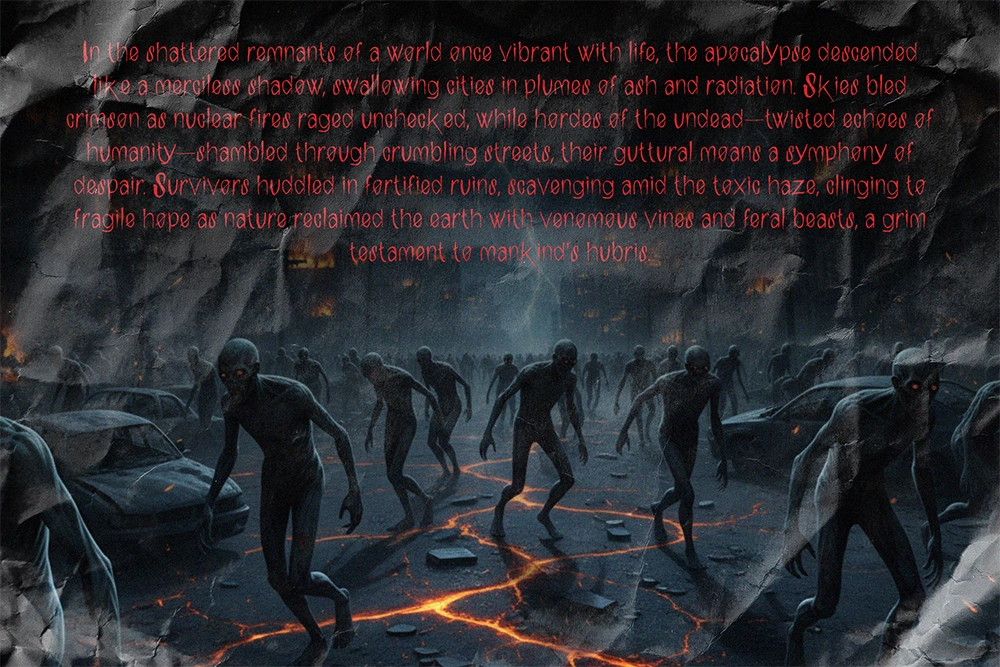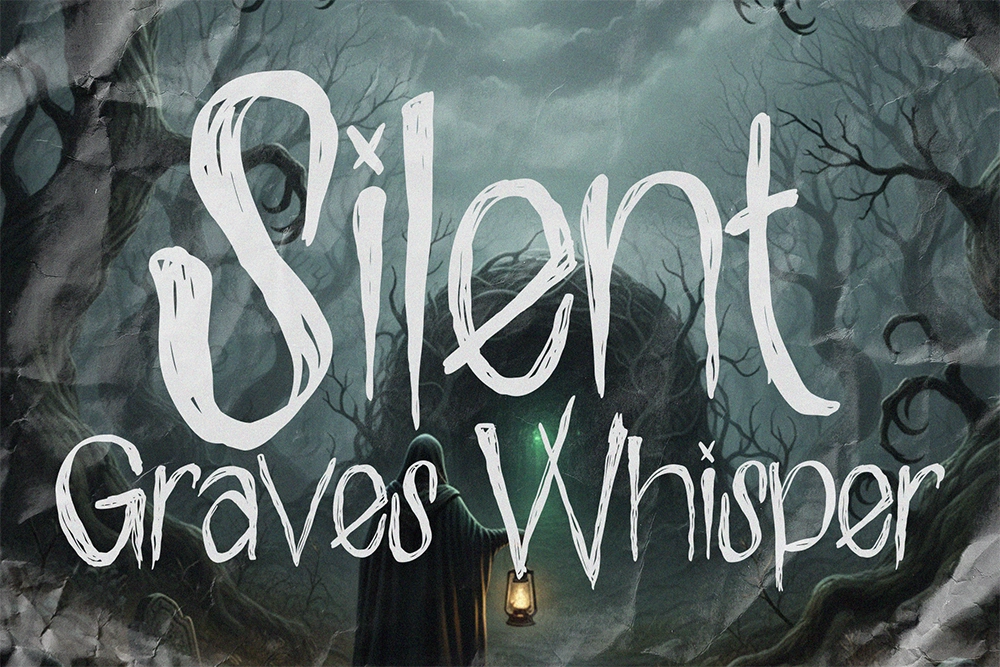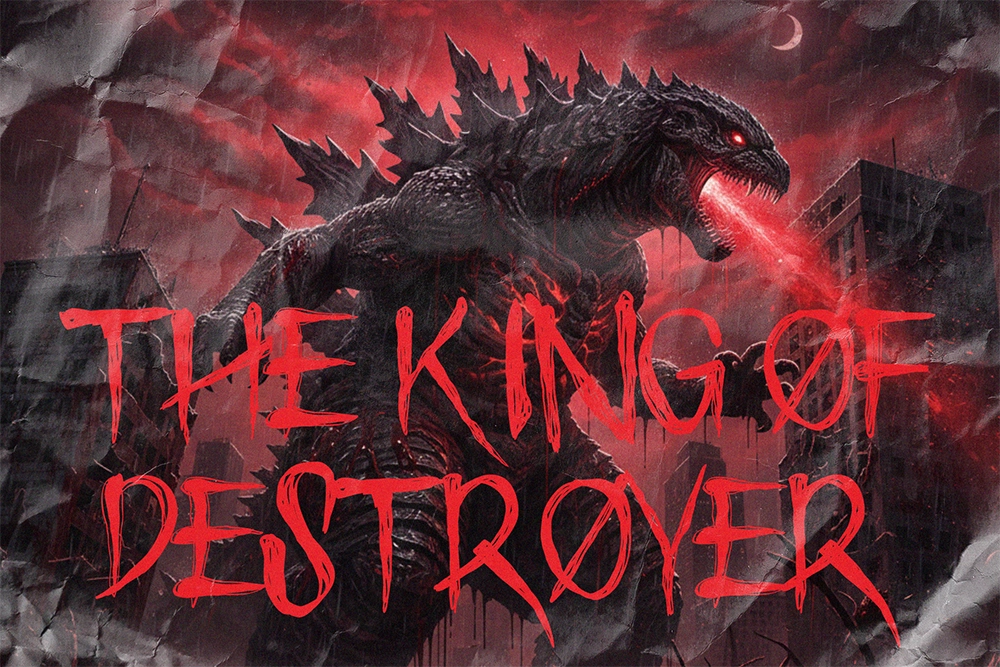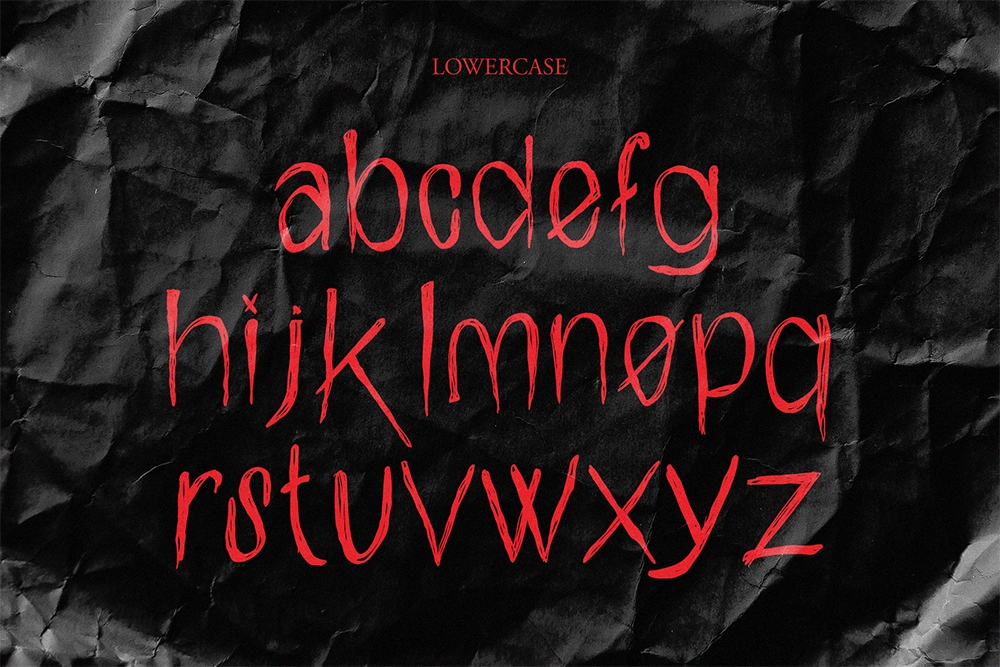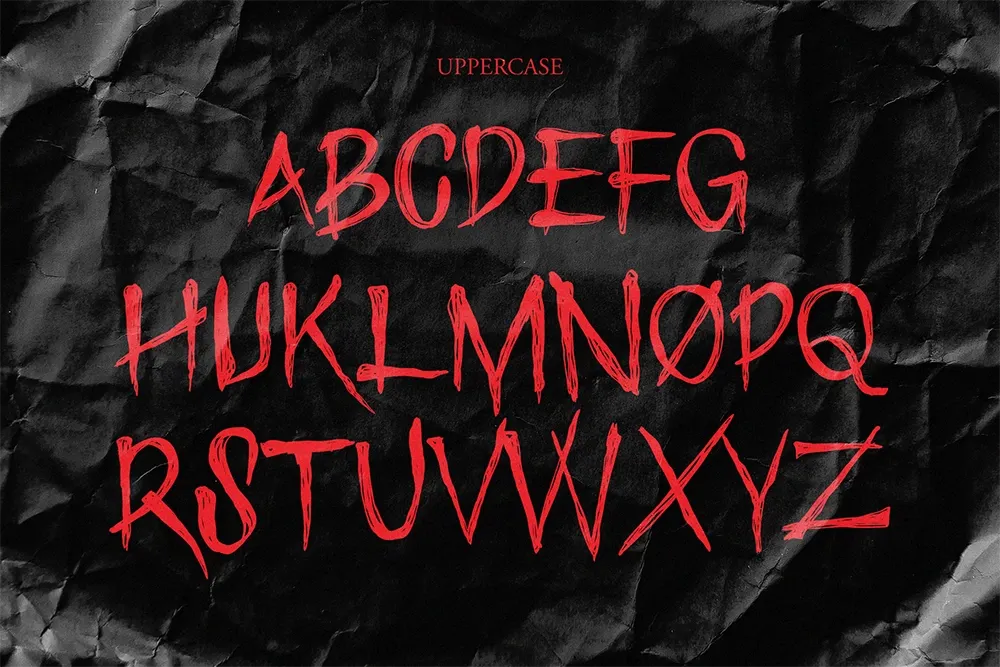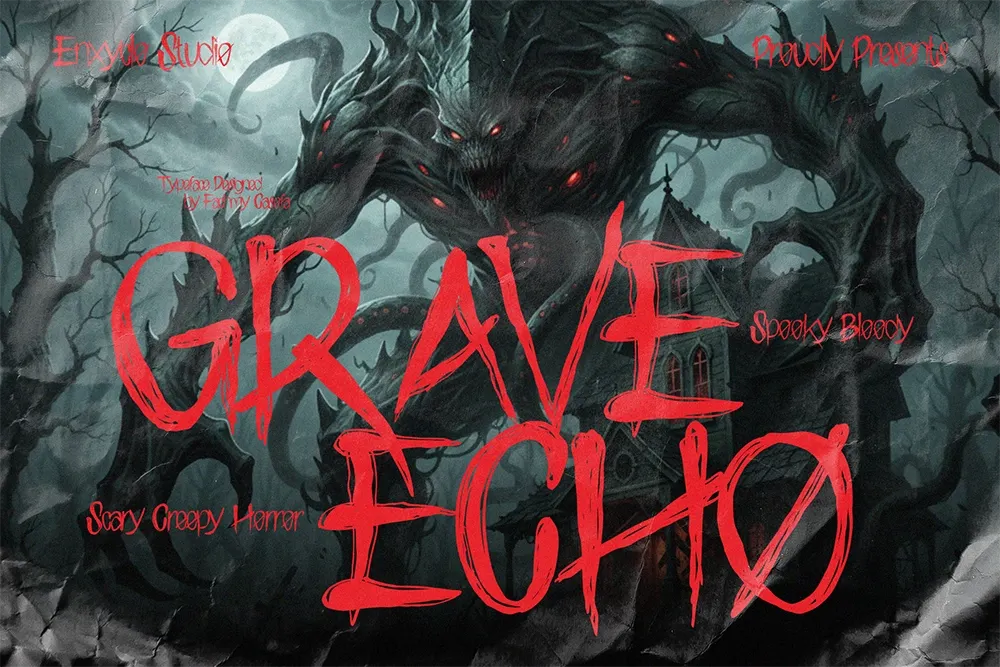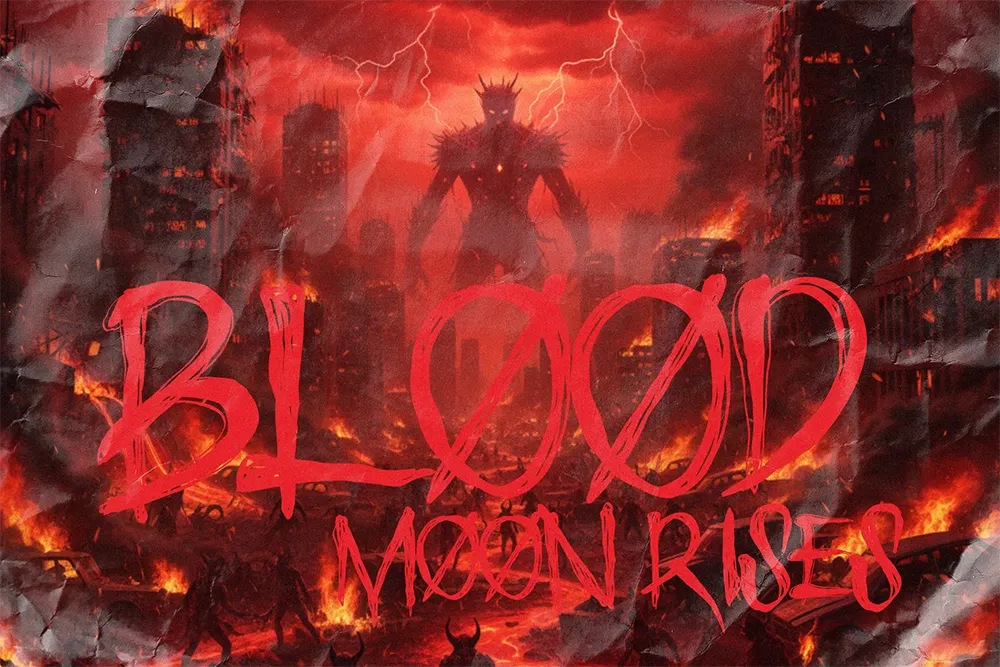
Grave Echo - Scary Horror Font
Grave Echo – Scary Horror Font is a bold horror display typeface designed to capture the chilling atmosphere of classic spooky visuals. With sharp, eerie letterforms and a dark, unsettling personality, this font instantly creates tension and drama in any design. Its haunting shapes bring a cinematic horror aesthetic that feels mysterious, intense, and unforgettable.
Perfect for Halloween posters, horror movie titles, spooky event graphics, and dark-themed branding, Grave Echo delivers powerful typography that commands attention. The combination of creepy style and clear readability makes it ideal for headlines, merchandise, banners, and promotional materials that need a strong horror impact.
• Horror-Inspired Display Letterforms
• Bold and Highly Readable Style
• Ideal for Halloween, Horror Posters, and Spooky Branding